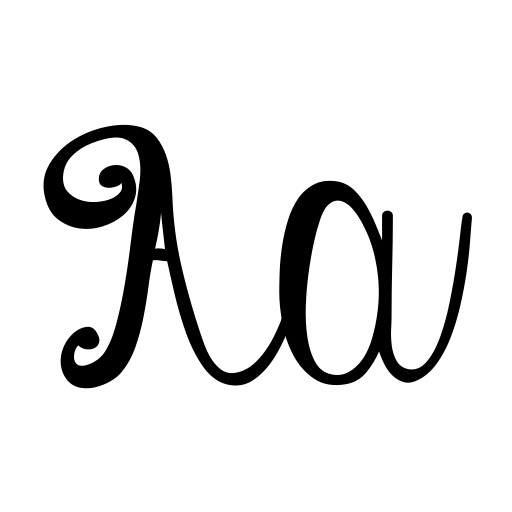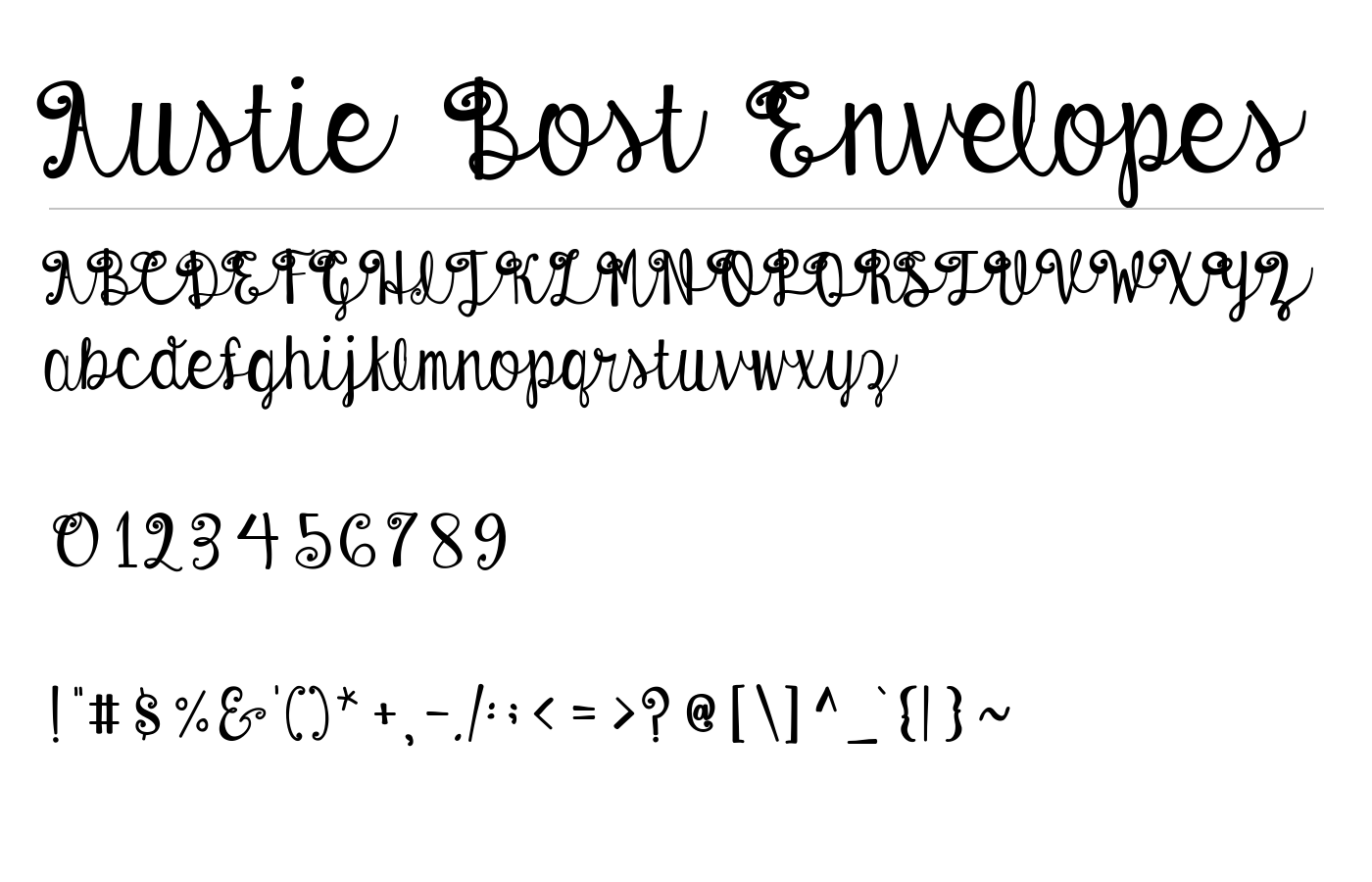
Austie Bost Envelopes is a playful and whimsical script font with elegant, curly swashes and a light, airy feel. Its narrow, handwritten style with distinctive loops and gentle stroke contrast makes it perfect for creative branding, invitations, and decorative use where a friendly and charming personality is desired. This font adds a unique, artistic touch to designs needing a casual yet refined look.
Austie Bost Envelopes Font
About Austie Bost Envelopes Font
| Font family | Austie Bost Envelopes Font |
| Designer | Austin Owens |